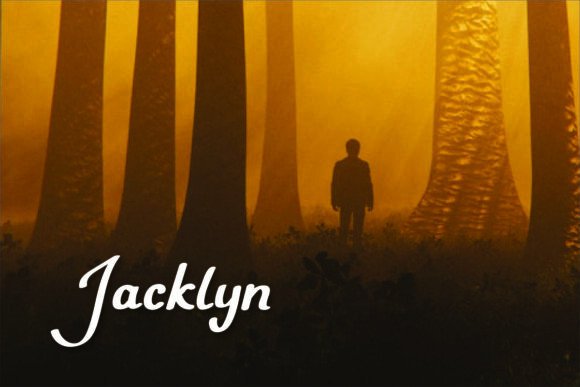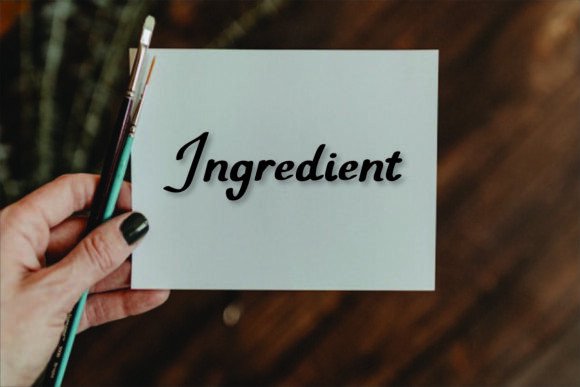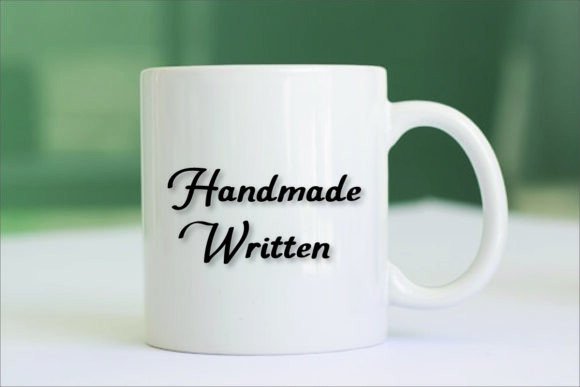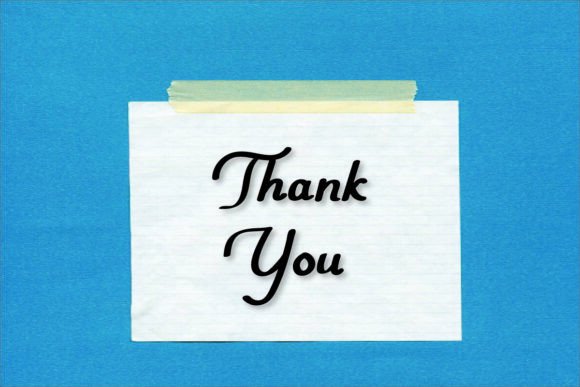
Introducing Distance Font: A Delightful Handwritten Font with Warmth and Personality
In the world of typography, fonts play a crucial role in conveying emotions and setting the tone for a message. For designers and crafters looking for a font that exudes warmth and personality, Distance Font is an excellent choice. This delightful handwritten font is imbued with a sense of authenticity and charm, making it perfect for a variety of design projects.
The Characteristics of Distance Font
Distance Font is a whimsical handwritten font that boasts unique and varied letterforms. Its strokes are carefully crafted to evoke a sense of warmth and friendliness, making it ideal for conveying heartfelt messages. The font’s distinctive characteristics include:
• Whimsical strokes: Distance Font features playful and expressive strokes that add a touch of personality to any design.
• Varied letterforms: Each letter is uniquely crafted, giving the font a sense of authenticity and charm.
• Handwritten feel: The font’s handwritten feel makes it perfect for creating a personal and emotional connection with the reader.
Uses for Distance Font
Distance Font is a versatile font that can be used in a variety of design projects, including:
• Invitations: Whether it’s a wedding invitation, birthday party, or baby shower, Distance Font adds a touch of warmth and personality to any invitation.
• Greeting cards: The font’s whimsical strokes and varied letterforms make it perfect for creating heartfelt greeting cards for special occasions.
• Branding: Distance Font can be used to create a unique and memorable brand identity that stands out from the crowd.
• Stationery: The font is ideal for creating personalized stationery, such as notebooks, journals, and letterheads.
Why Choose Distance Font?
With so many fonts available, why choose Distance Font? Here are just a few reasons:
• Unique and distinctive: Distance Font is a one-of-a-kind font that will set your design apart from others.
• Emotional connection: The font’s handwritten feel and whimsical strokes create an emotional connection with the reader.
• Versatile: Distance Font can be used in a variety of design projects, from invitations to branding.
• Ease of use: The font is easy to read and works well in both digital and print formats.
Tips for Using Distance Font
To get the most out of Distance Font, here are a few tips:
• Use it sparingly: Distance Font is a bold font, so use it sparingly to create emphasis and add personality to your design.
• Pair it with other fonts: The font pairs well with other fonts, such as serif and sans-serif fonts, to create a unique and visually appealing design.
• Experiment with colors: Distance Font works well with a variety of colors, so don’t be afraid to experiment and find the perfect color scheme for your design.
Distance Font is a delightful handwritten font that is sure to add a touch of warmth and personality to any design. With its whimsical strokes and varied letterforms, it’s perfect for conveying heartfelt messages and creating a unique and memorable brand identity. Whether you’re a designer or crafter, Distance Font is an excellent choice for your next project.